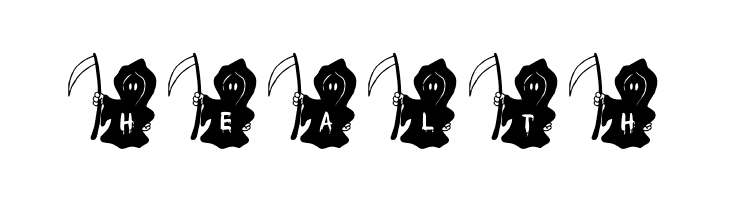
A decorative font with characters inside heart shapes, perfect for romantic themes.
An ornate and decorative font with intricate designs and embellishments.
A decorative Halloween-themed font with playful and spooky illustrations.
Intricate and bold motifs inspired by traditional Mexican art, featuring detailed cultural symbols.
A whimsical font with characters encased in cartoon bear figures, perfect for playful designs.
A playful font with characters inside friendly ghost shapes, perfect for whimsical designs.
A playful font with characters in balloon shapes, perfect for fun and joyful designs.
A decorative font with spider and web motifs, perfect for Halloween themes.
A collection of vintage-style illustrations and signage evoking mid-20th century Americana.
A whimsical, decorative font featuring picnic and party-themed illustrations.
A playful dingbat font with cute Halloween-themed illustrations.
A spooky, playful font with jagged, uneven letters ideal for Halloween themes.
A bold, horror-themed font with a dripping, irregular design.
A bold, dripping font perfect for horror-themed designs.
A whimsical collection of spring and Easter-themed doodles and decorative text.
A playful, pumpkin-themed decorative font ideal for festive occasions.
A decorative font with characters resembling intertwined branches or roots.
A playful, bone-themed decorative font ideal for spooky designs.
A spooky, bone-themed decorative font ideal for Halloween designs.
A festive, decorative font with Christmas-themed embellishments on each character.
A whimsical collection of heart-themed decorative elements with varied designs.
A playful font with monster-themed characters, perfect for whimsical designs.